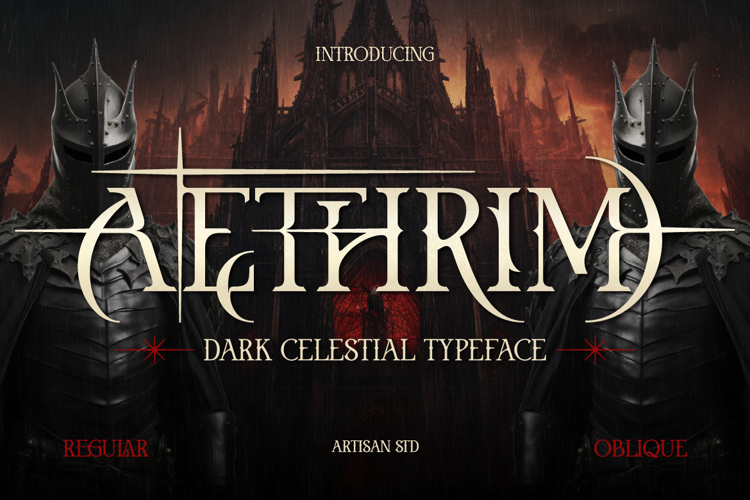
Aethrim Font
Step into the shadows with Aethrim, a dark celestial display typeface handcrafted by Artisan Font. Designed with sharp dagger-like serifs, sweeping crescent loops, and dramatic cross flourishes, Aethrim embodies the mystery of gothic fantasy, dark romance, and medieval folklore.
Perfect for:
- Dark Fantasy Book Covers, Novel Headlines & Movie Posters
- RPG & Dark Fantasy Video Game UI / Character Selection Screens
- Metal Band Logos, Album Covers & Vinyl Sleeves
- Gothic Apparel, Streetwear & Dark Aesthetic Merch
- Halloween Invitations, Mystical Cards & Tarot Deck Designs